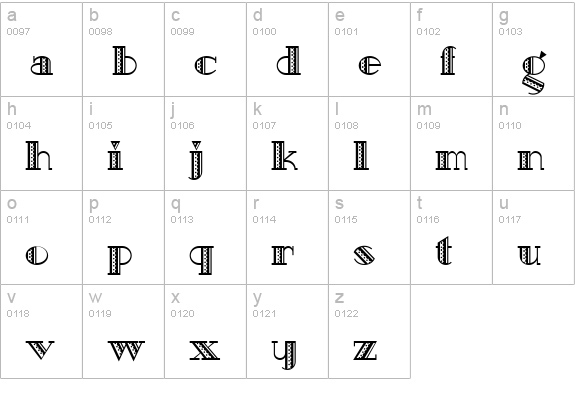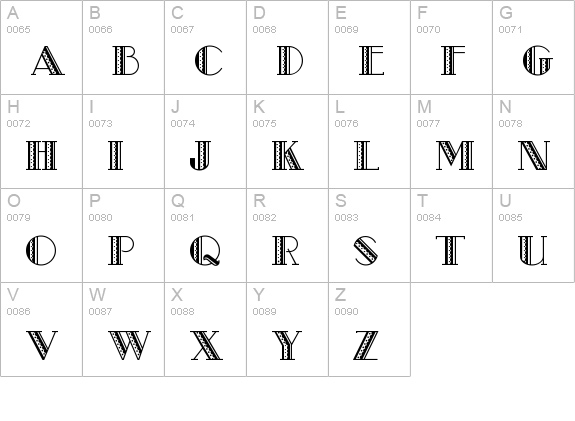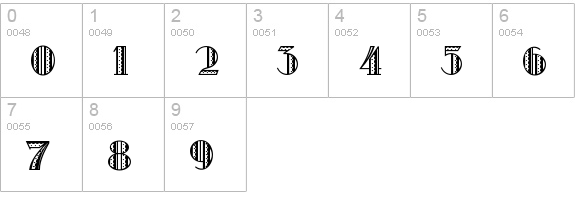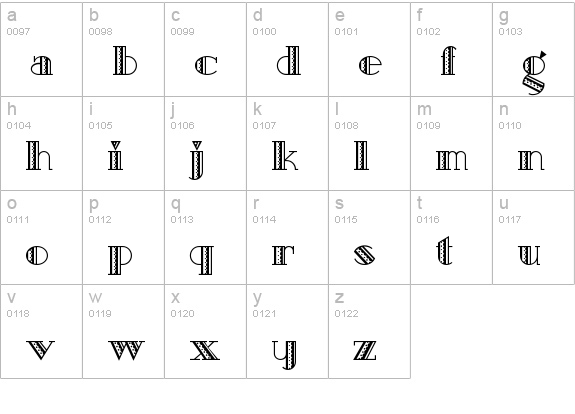
MetroRetroRedux Font Details
MetroRetroRedux is a stylish and versatile display font that combines a retro aesthetic with a modern twist. This font features clean lines and sharp angles, making it perfect for creating eye-catching designs for posters, logos, and more. With its bold and distinctive look, MetroRetroRedux is sure to make your projects stand out from the crowd. What's even better is that MetroRetroRedux is available for free download at FontsMarket.com. This means you can easily access this stunning font and use it in your designs without any cost. So why wait? Add MetroRetroRedux to your font collection today and unleash your creativity with this unique and captivating typeface.